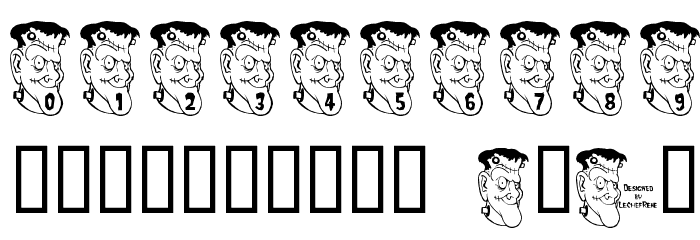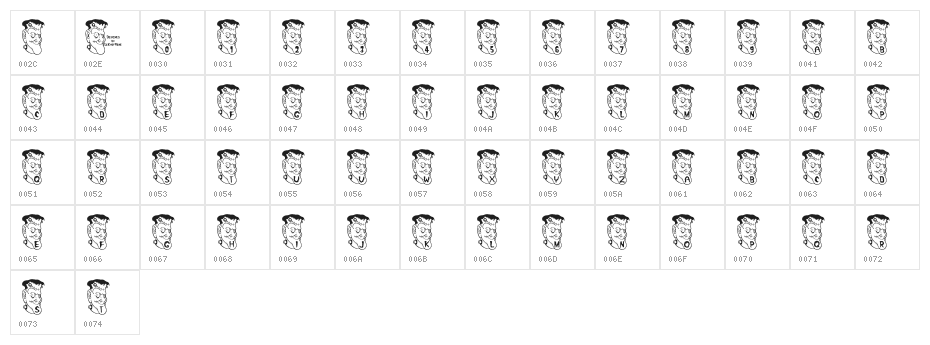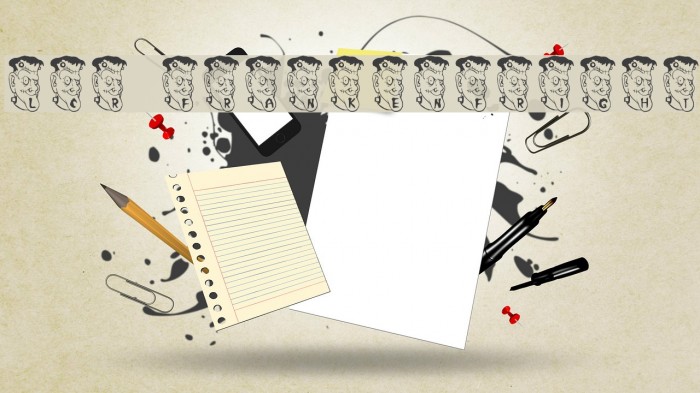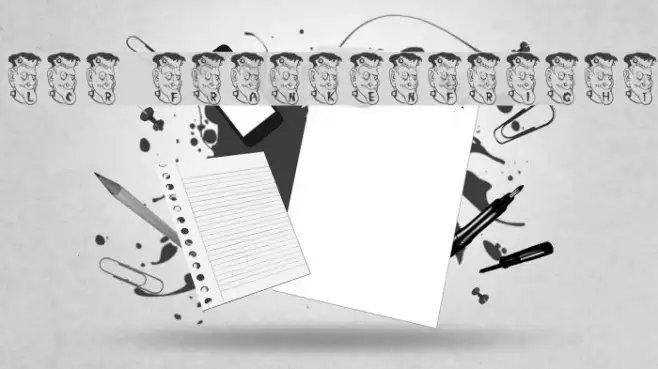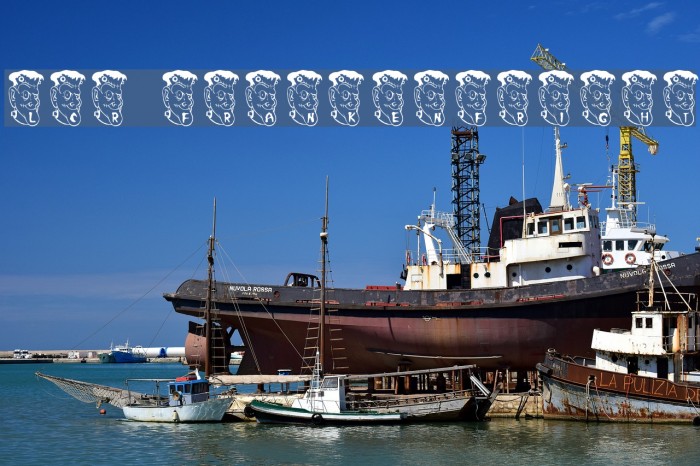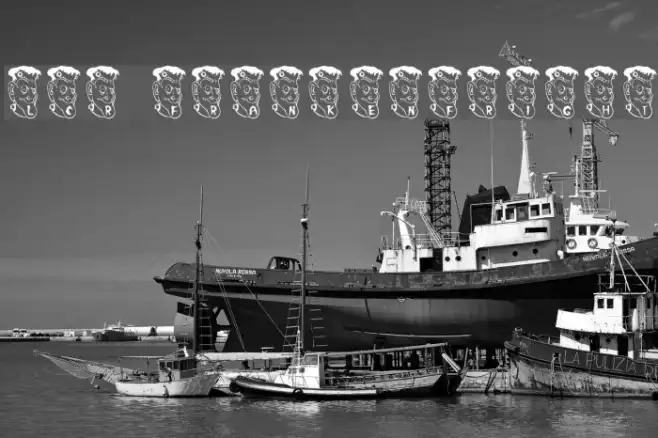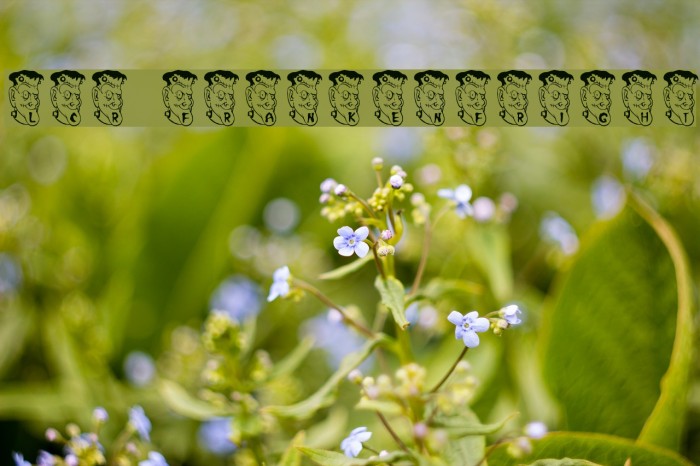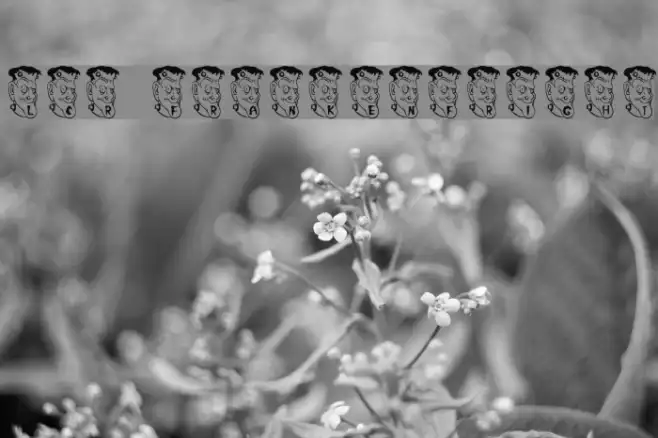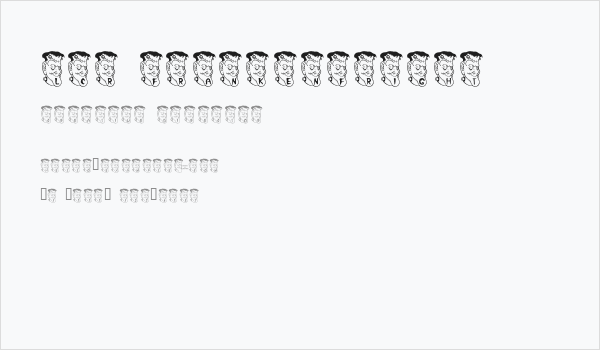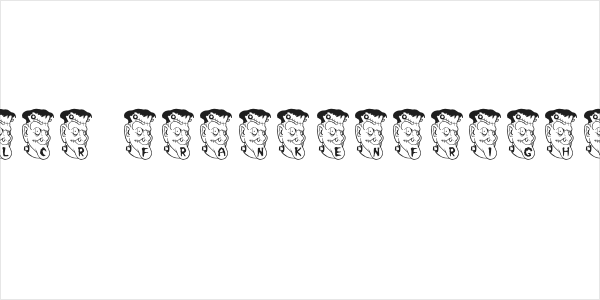
LCR FrankenFright Font
LCR FrankenFright Description
This font features a playful and spooky design, with each character embedded within a cartoonish depiction of a Frankenstein-like monster's head. The letters and numbers are bold and prominent, making them easily readable despite the decorative elements. The style is highly unique, combining elements of horror and humor, perfect for themed projects that require a distinctive and eye-catching typeface. The characters are consistent in style, maintaining a cohesive look across the entire set. This font is ideal for Halloween-themed events, posters, or any project that aims to capture a fun yet eerie atmosphere.
| Use Case | Headlines, Posters, Themed Events |
| Proposed Projects | Ideal for Halloween events, themed posters, party invitations, or any project needing a fun, eerie vibe. |